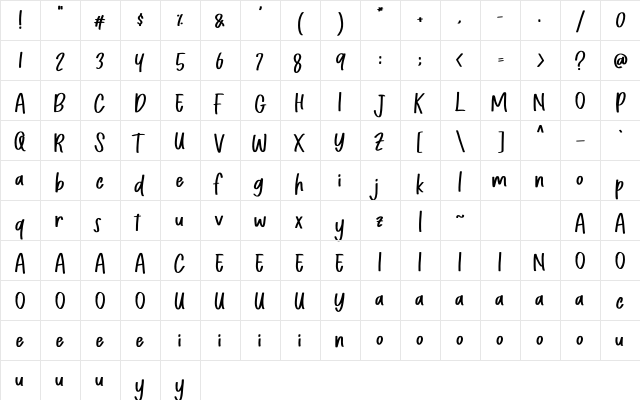
Chapillada Regular
| Designer | Iis Syifauarrahmah and Ahmad Syarif Afandi |
Design Context for Chapillada Typeface
Chapillada is a composed and adaptable typeface that performs quietly and consistently across a wide range of design contexts.